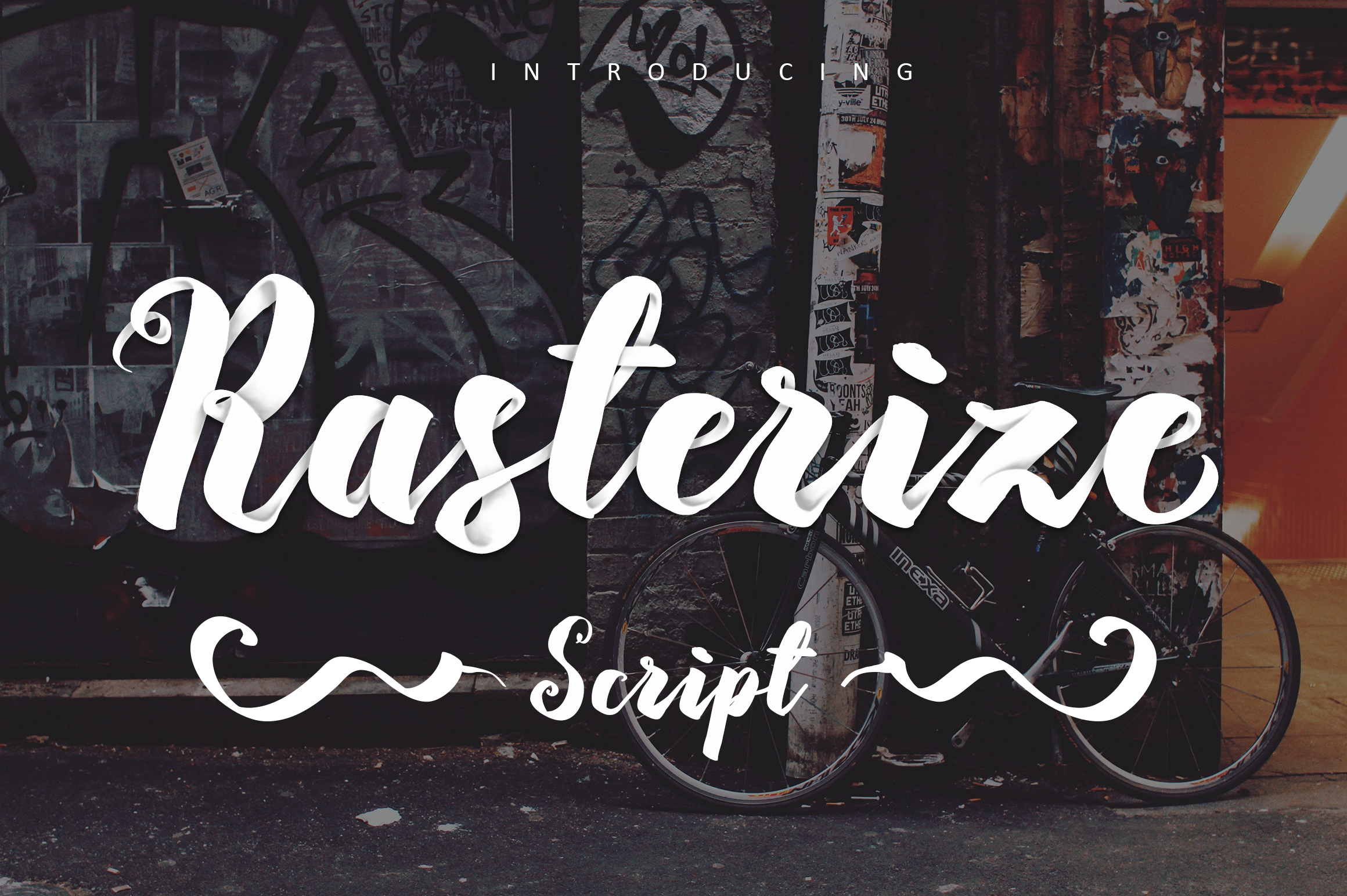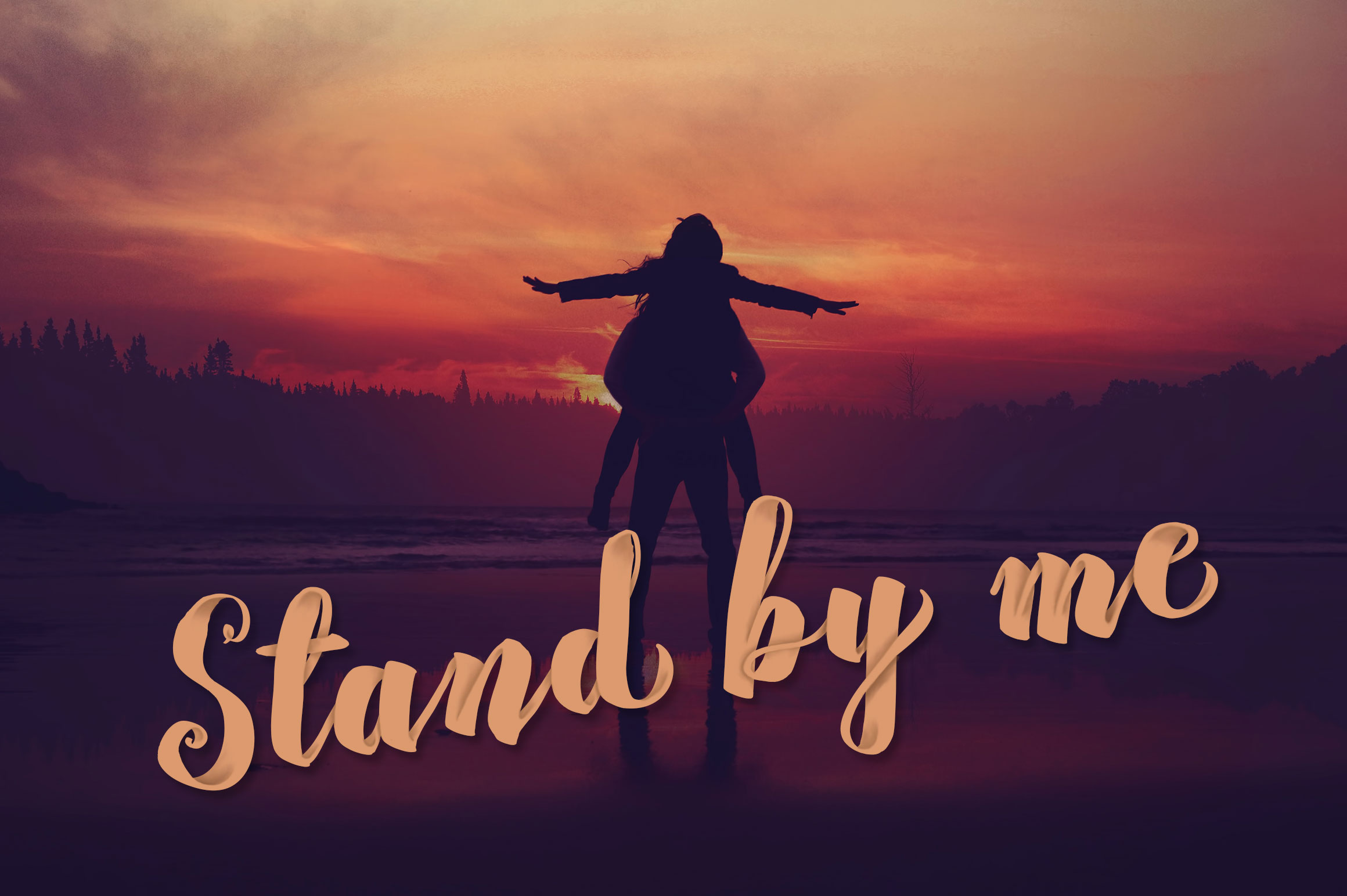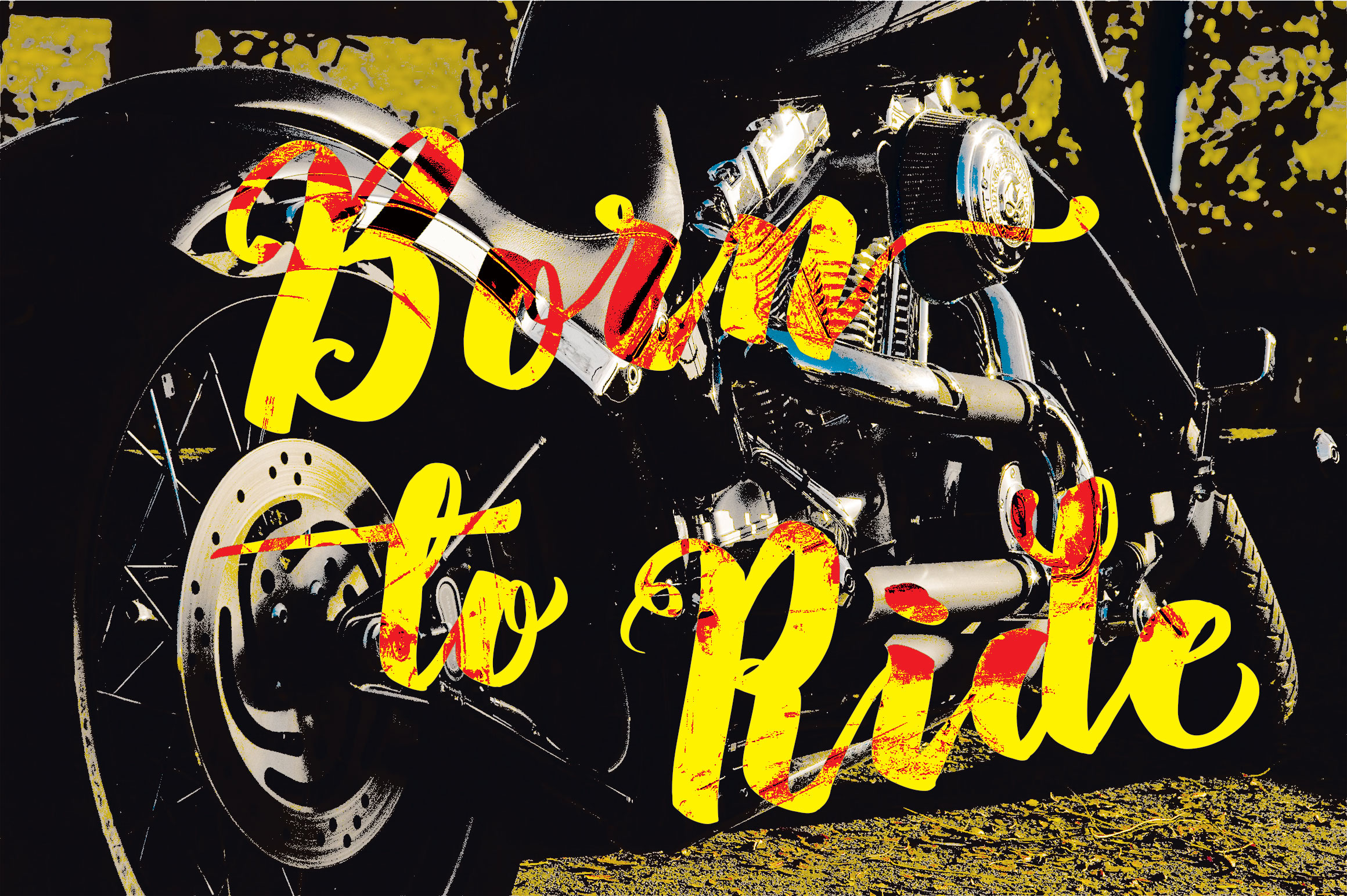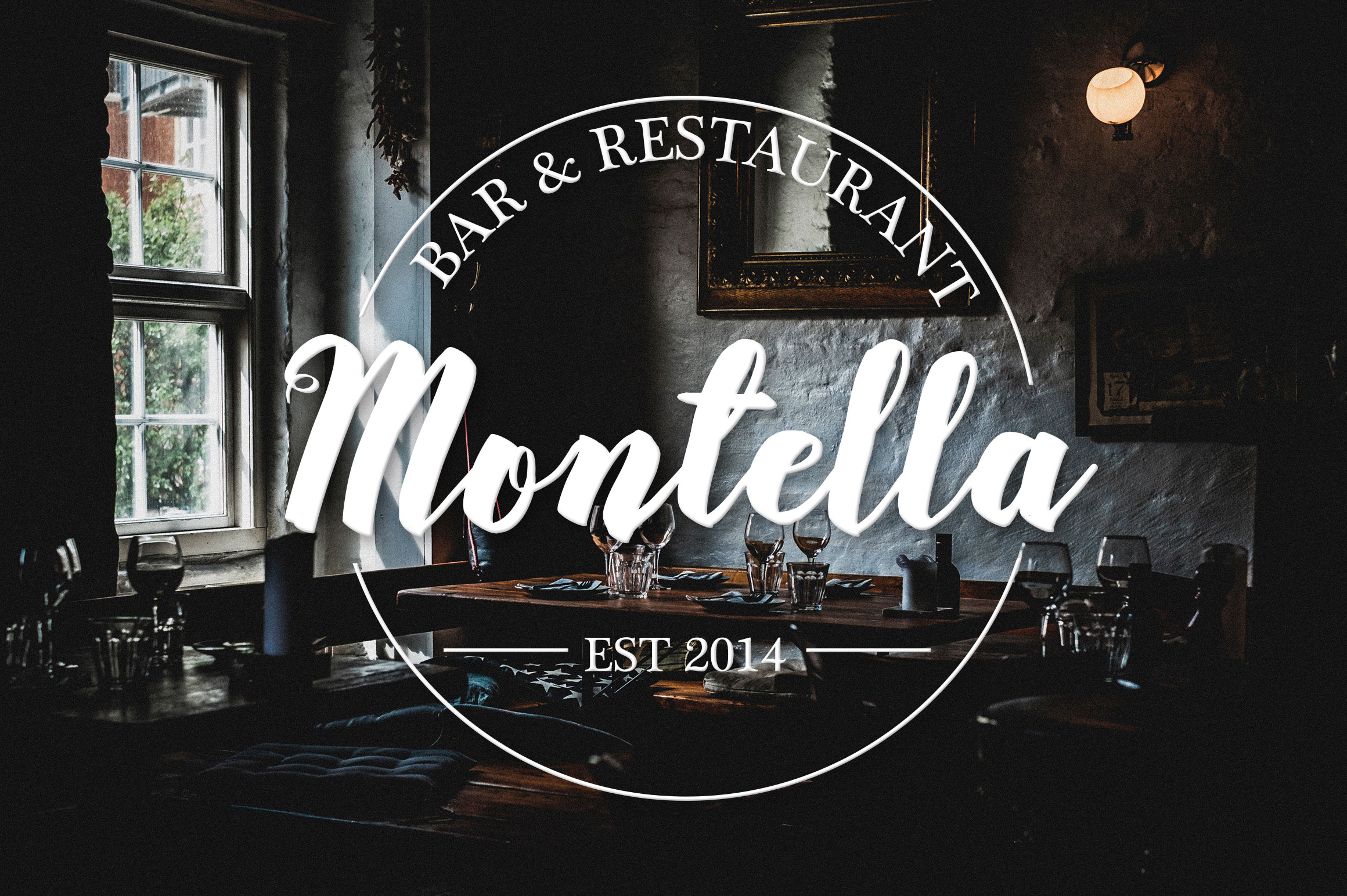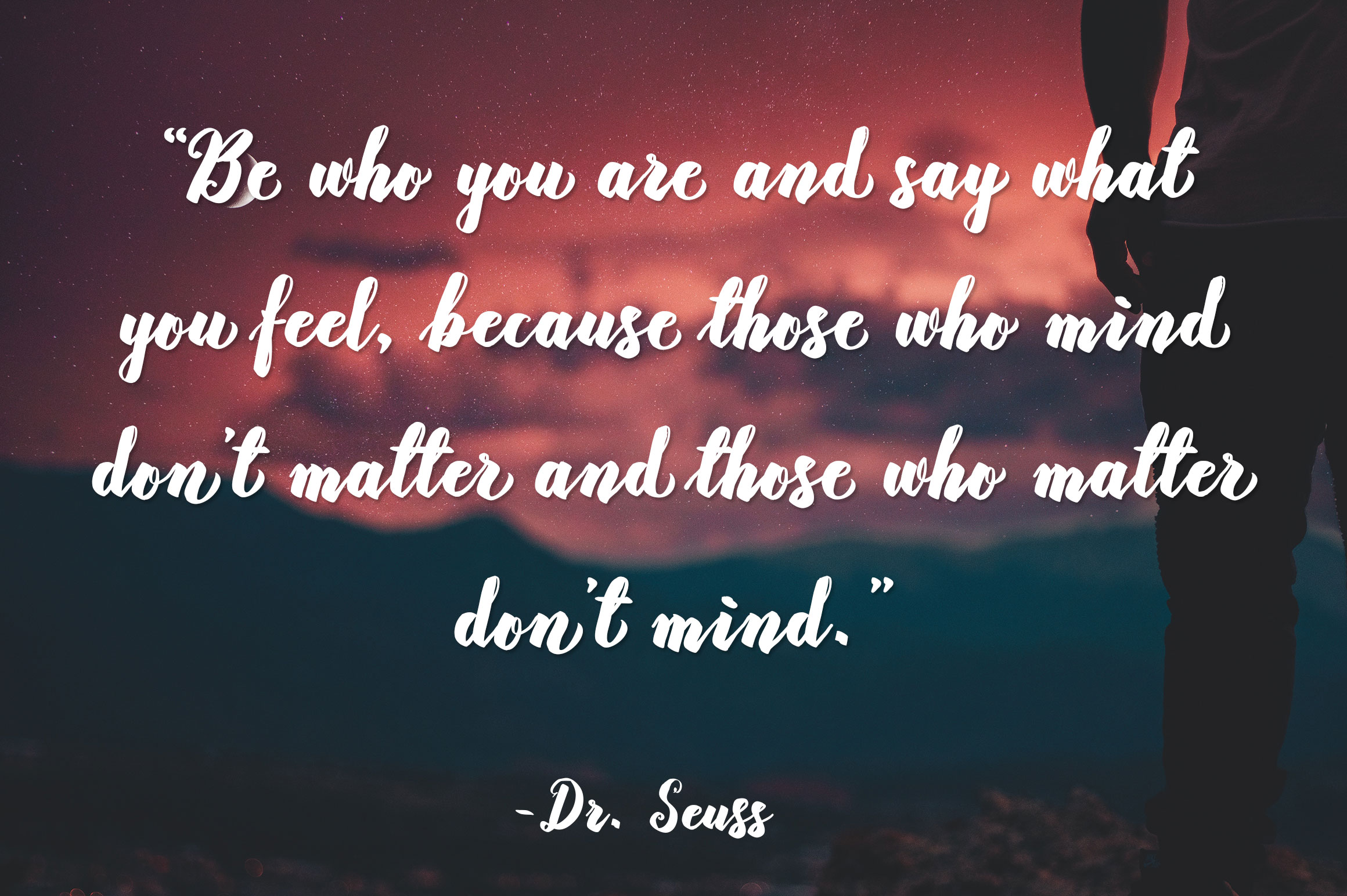
Rasterize Font
About Rasterize Font
Rasterize Script Bold is a brand new brush script created by Darwinoo.
The script is drawn with a technique called ‘speed motion’, which gives the text a unique shape. It features 400 unique glyphs with 105 alternate characters.